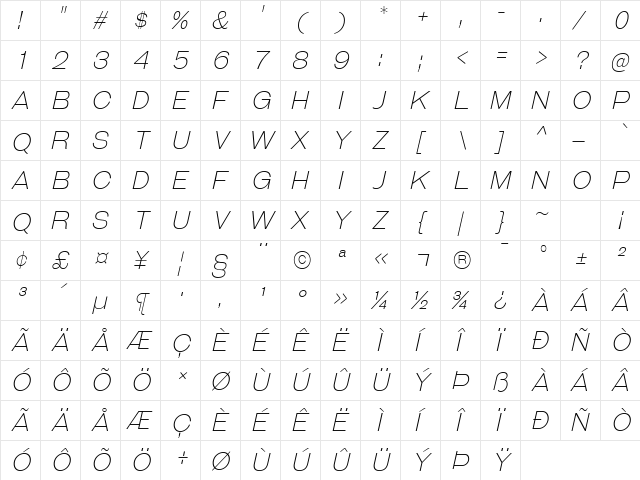
Galderglynn Titling ExtraLight Italic
Design Context for Galderglynn Titling Typeface
Galderglynn Titling offers clean, dependable letterforms without strong stylistic allegiance, making it a practical choice for designers who need flexibility. The dynamic lean of this cut emphasises speed and emphasis in any layout. The delicate stroke weight brings airiness and refinement to layouts.
Pro Tip: Use Galderglynn Titling for emphasis, pull quotes, and subheadings where its slanted energy can add rhythm to the layout.